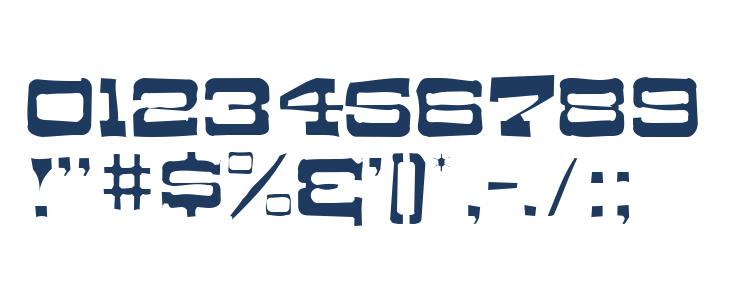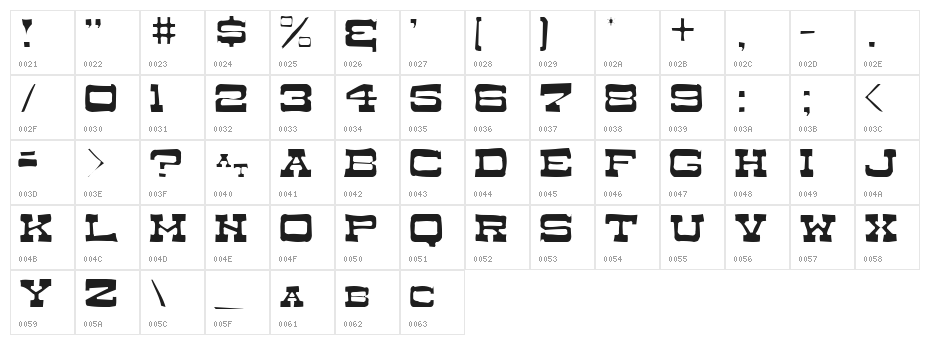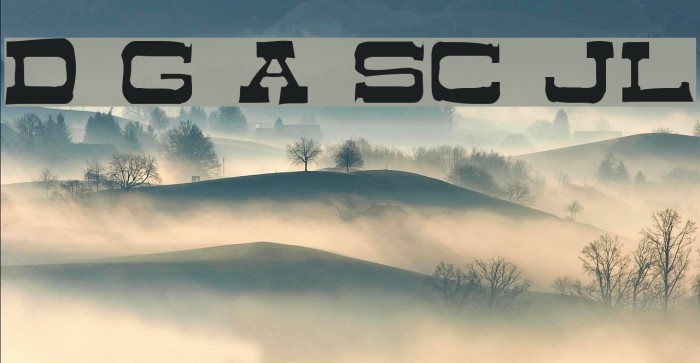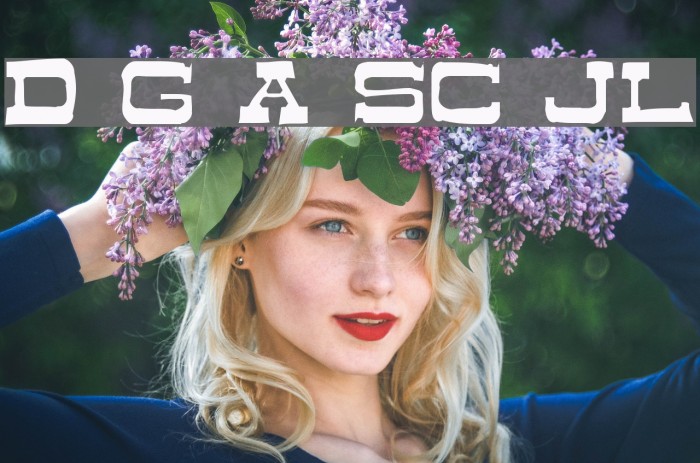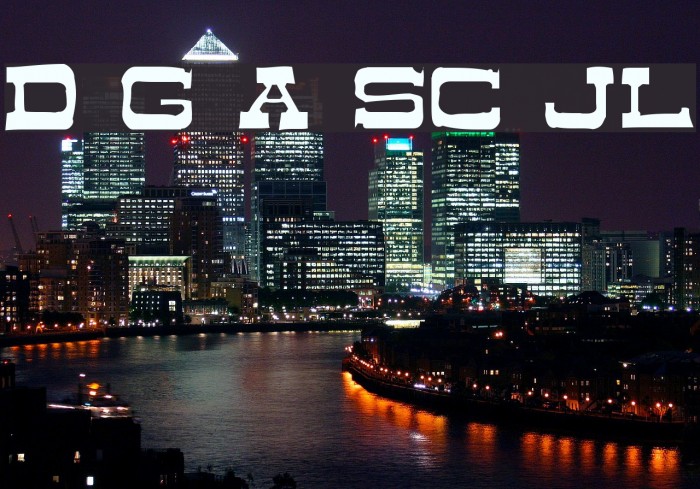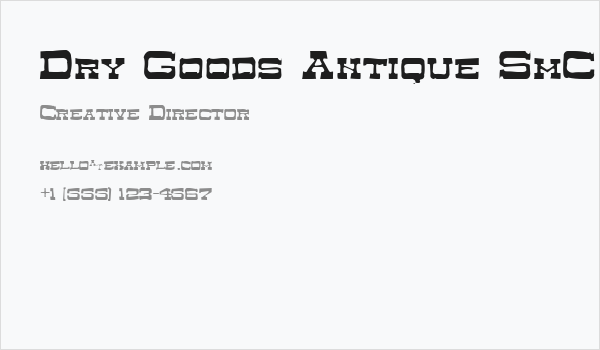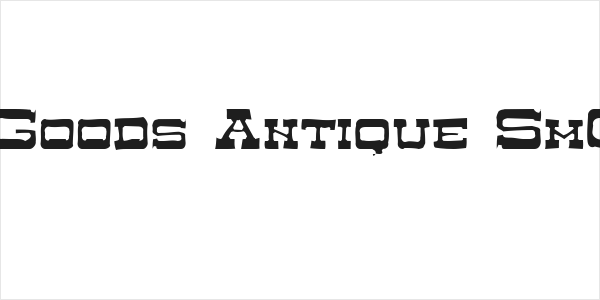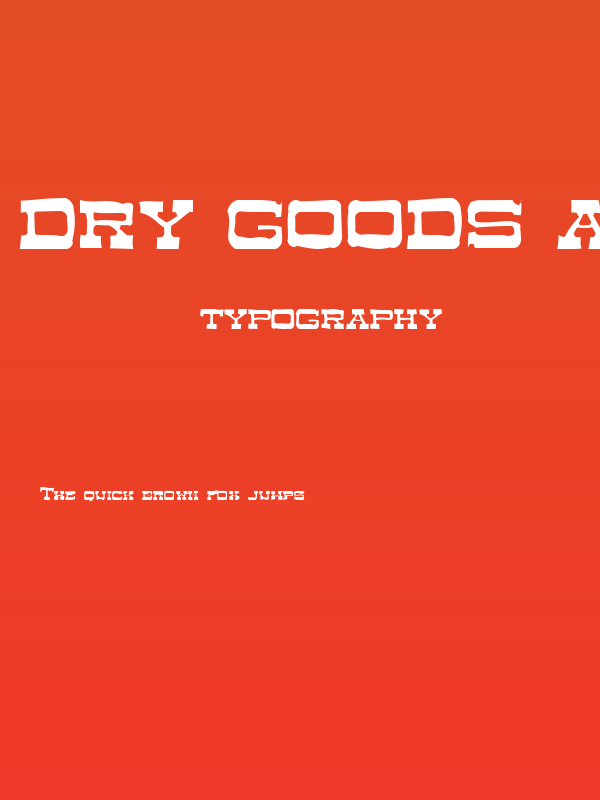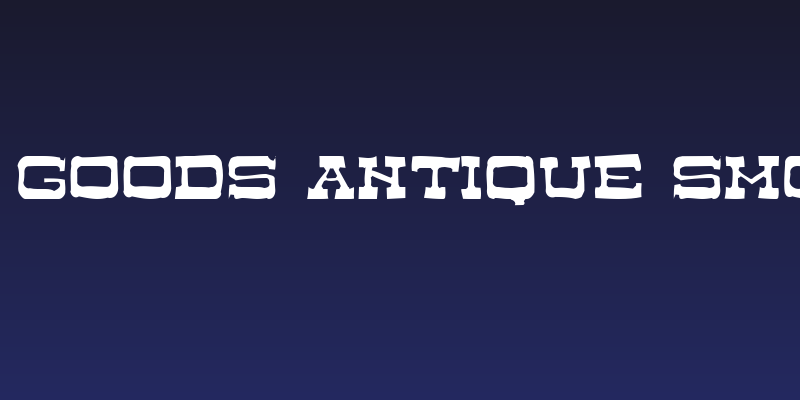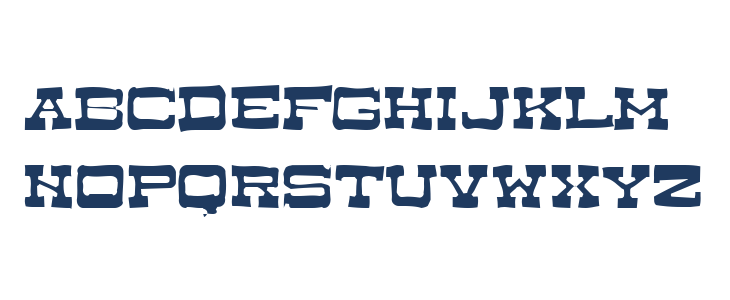
Dry Goods Antique SmC JL Font
Dry Goods Antique SmC JL Description
This font features a bold, decorative style with a vintage flair, characterized by its thick, blocky letters and unique cut-out details that give it a rugged, antique appearance. The uppercase and lowercase letters maintain a consistent weight, contributing to its strong visual impact. The numerals and special characters are equally bold, with distinctive shapes that enhance the font's overall aesthetic. The design is reminiscent of old-fashioned signage or posters, making it ideal for projects that require a touch of nostalgia or a bold statement.